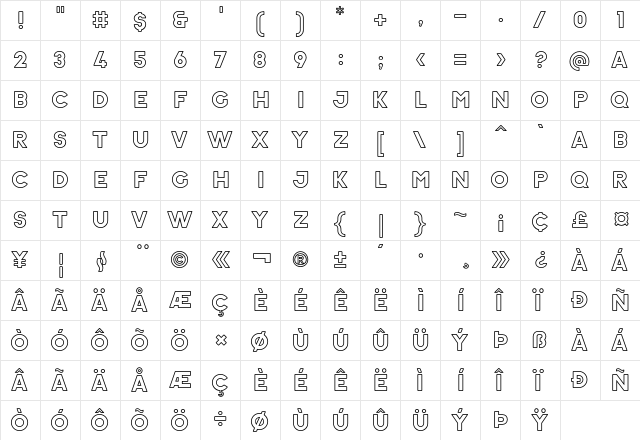
Ephesus extrabold outline ExtraBold
| Foundry | Ahmet ALTUN |
| Designer | Ahmet ALTUN |
Design Context for Ephesus extrabold outline Typeface
Ephesus extrabold outline is built around its visual character rather than neutral utility — its distinctive forms are designed to make an impression at display sizes. The heavy weight commands attention and anchors typographic hierarchies.
Font Pairing: Pair with a clean neutral sans-serif for body copy to let Ephesus extrabold outline's character lead without overwhelming the composition.
Pro Tip: Treat Ephesus extrabold outline as the centrepiece of your typographic hierarchy. One strong heading set in a decorative face can carry an entire layout.